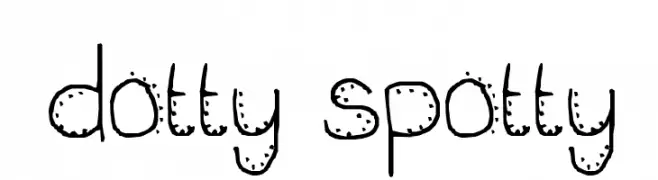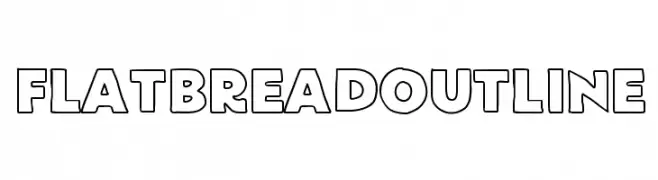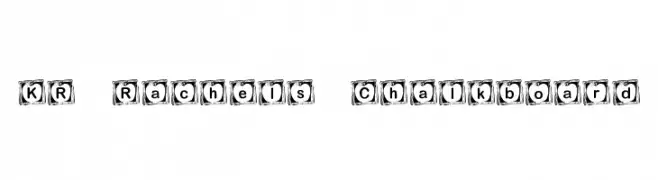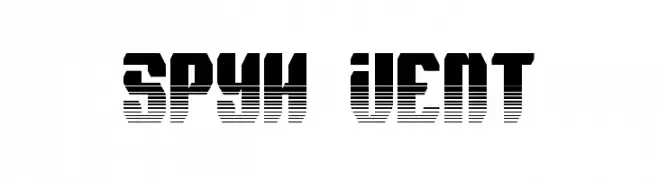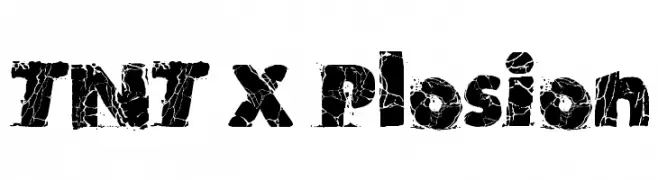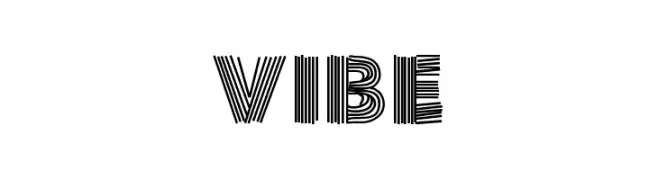
A playful font with arrows integrated into each character, offering a modern and dynamic style.
A bold, distressed font with a cracked, explosive design.
A bold, futuristic font with a distinctive striped pattern and geometric style.
A playful, hand-drawn decorative font with dotted accents and whimsical style.
A decorative font with parallel line detailing, creating a dynamic and modern look.
A bold, outlined font with a modern and geometric style.
A playful, chalkboard-style font with decorative square borders around each character.